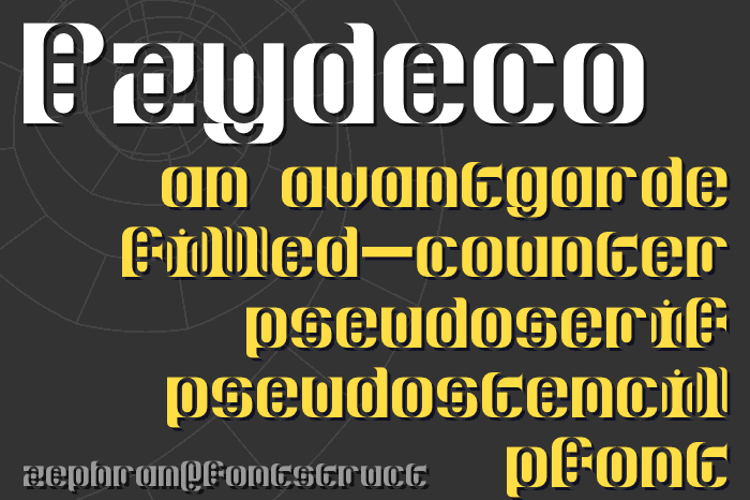
Pzydeco Font
Art Deco
About Pzydeco Font
Just another of my many doodles! :D
Added a second style called "Pzydeco Filled". This should be easier to read 😃